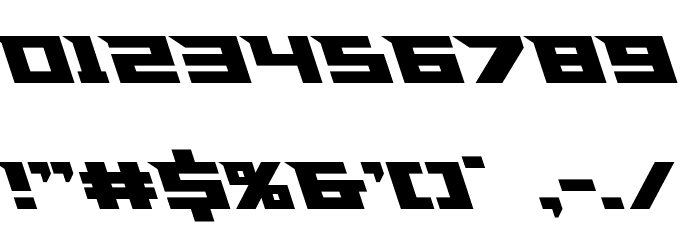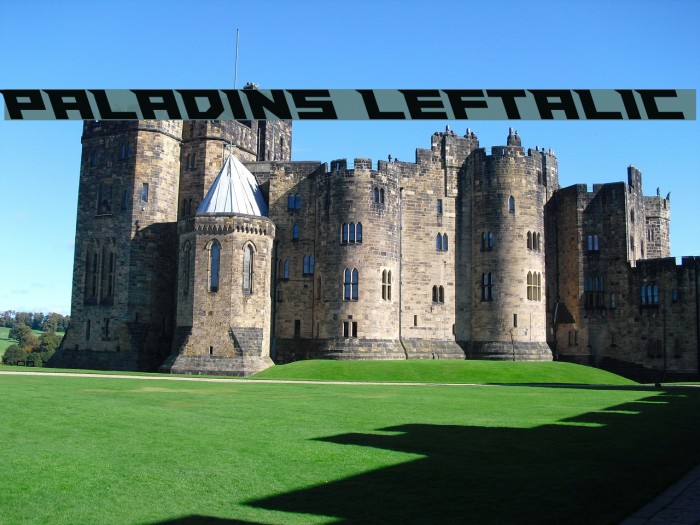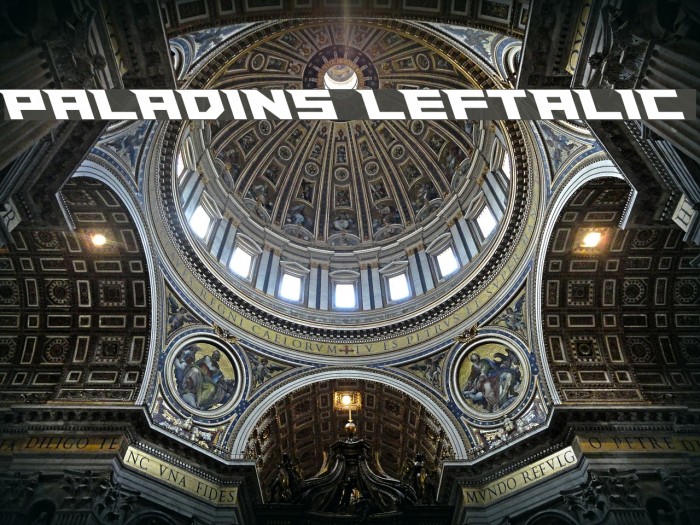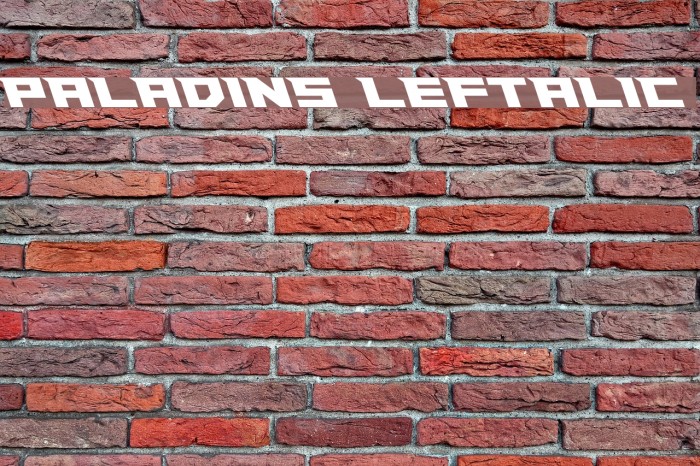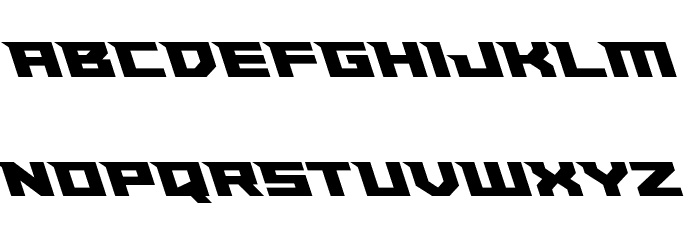
Paladins Leftalic Font
This font features a bold, angular design with a futuristic and dynamic appearance. The characters are sharply cut with a distinct slant, giving a sense of movement and energy. The uppercase and lowercase letters maintain a consistent style, with strong geometric shapes and a slightly condensed form. The numbers and special characters follow the same bold and angular theme, ensuring uniformity across all glyphs. The font's design is reminiscent of sci-fi and action themes, making it ideal for projects that require a modern and edgy look.
• Proposed Projects: Ideal for video game titles, movie posters, tech branding, and sports team logos.